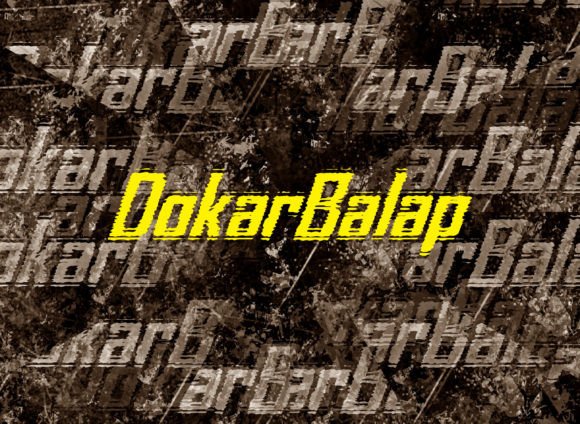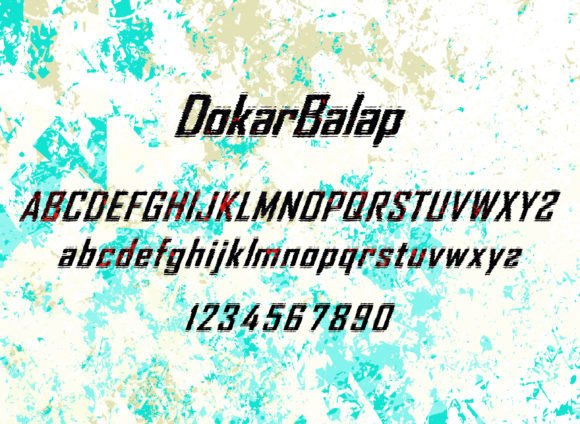
Introduction to Dokarbalap Font
Dokarbalap is a cool and unique display font.
Its strong and masculine look makes it suitable for all your projects that need bold and daring typography .
Key Features of Dokarbalap Font
Why Choose Dokarbalap Font?